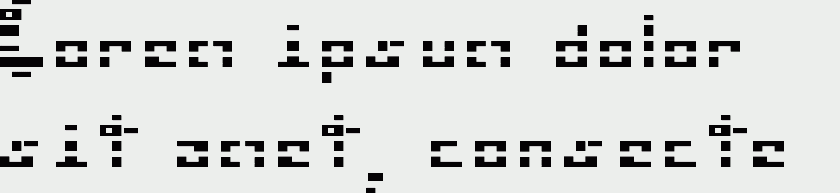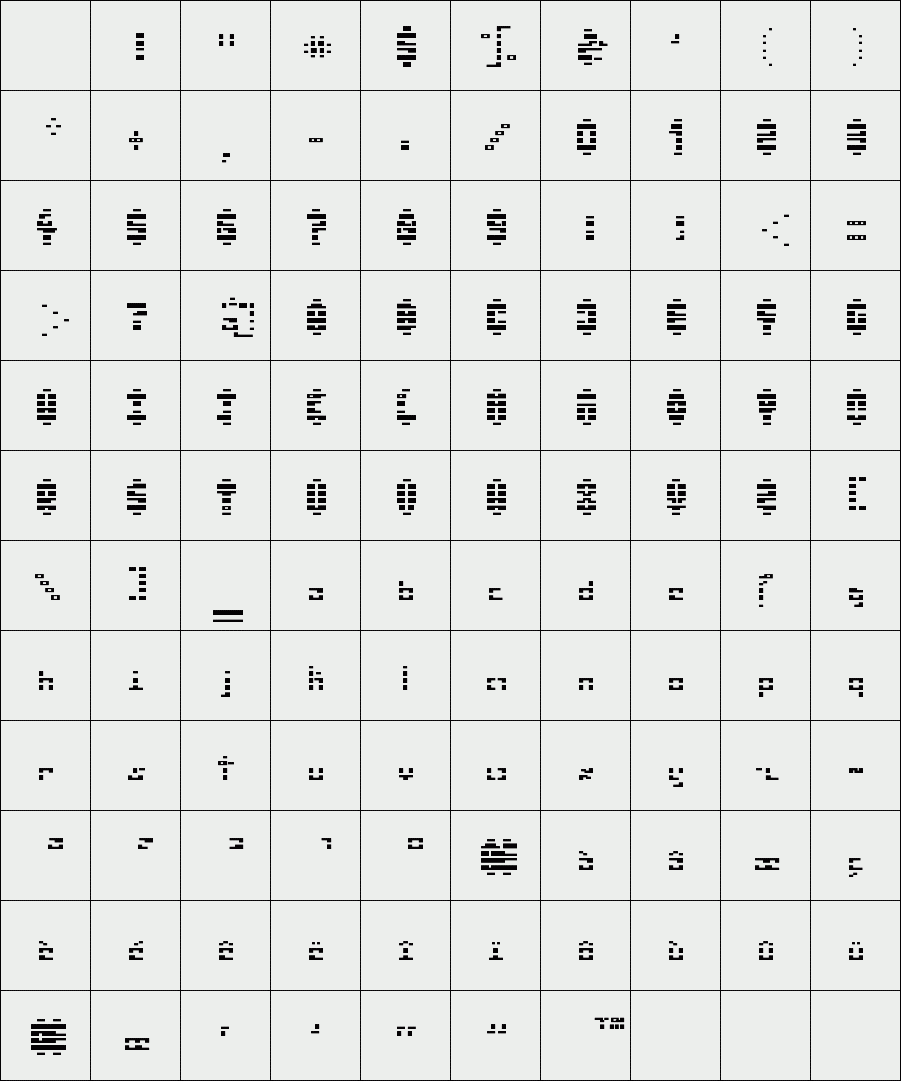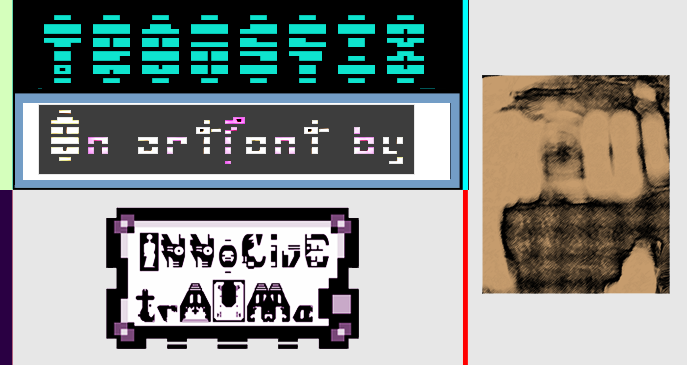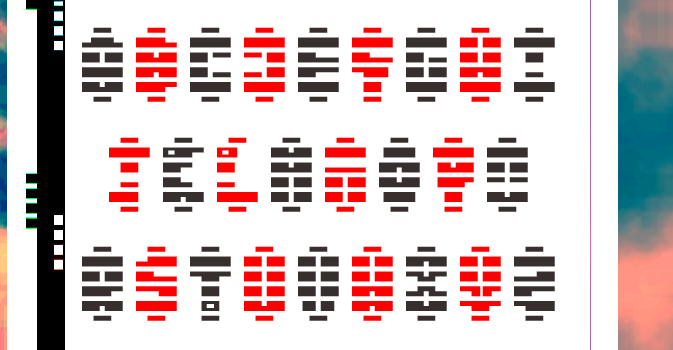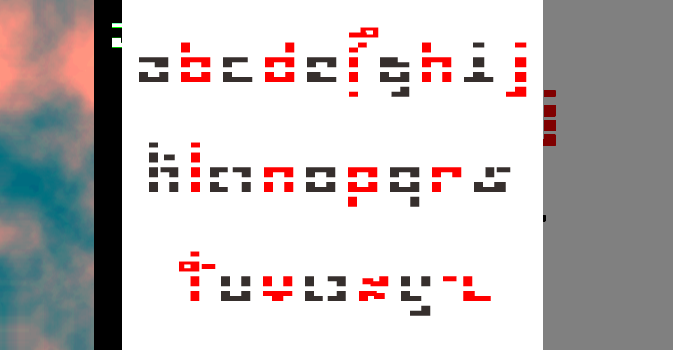
trAUMa 68 / Transfix
"Transfix", like all the "trAUMa" series, works at the frontier between Art & Type Design, Figuration & Abstraction, each font is a comprehensive world in which every glyph is a "living" entity. But put together they can produce your messages in the most accurate way.